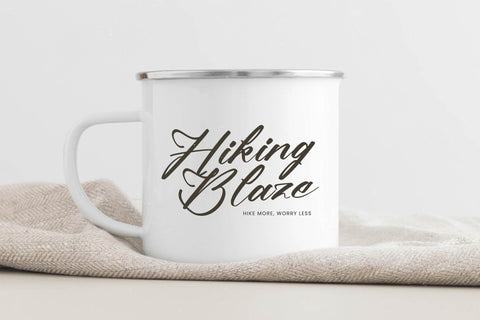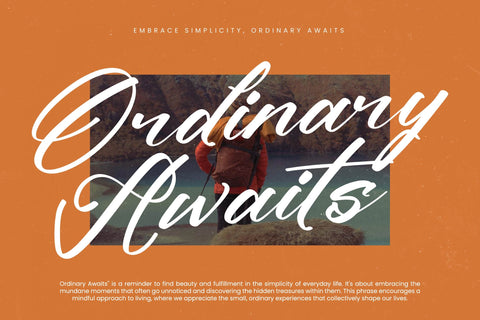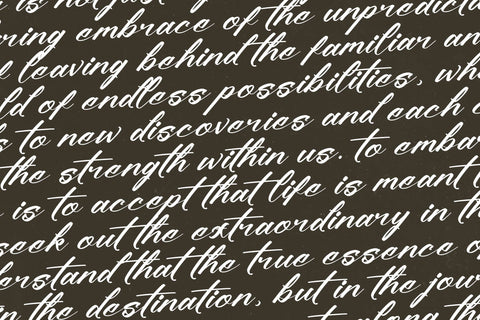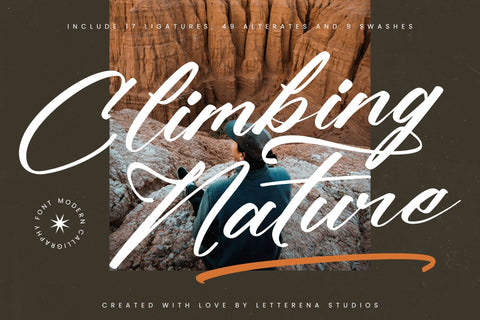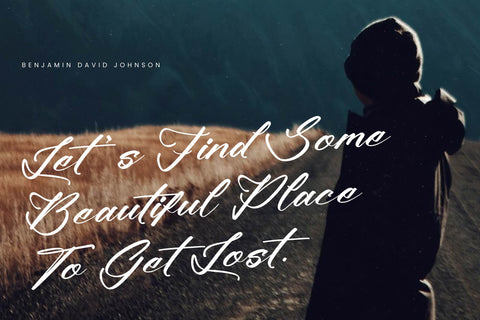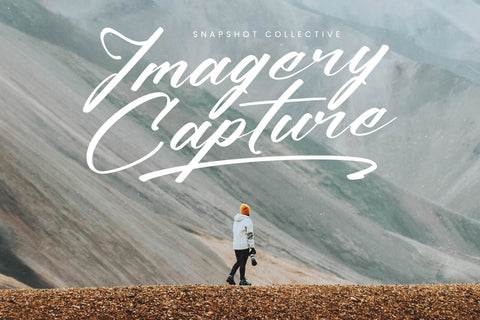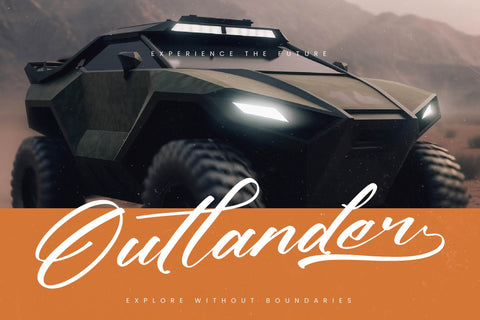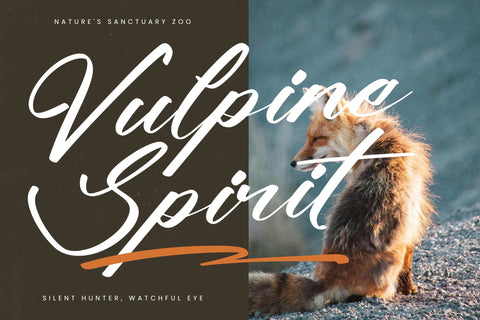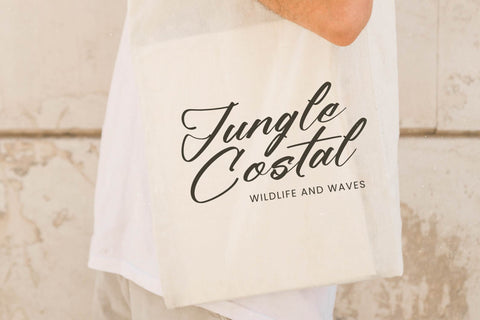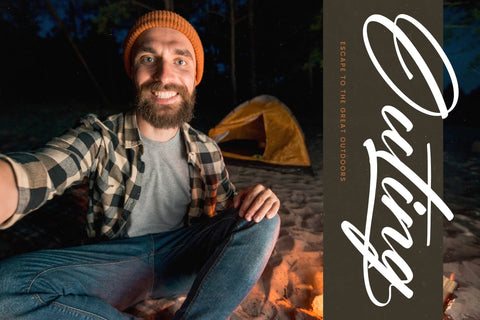
Climbing Nature – Modern Calligraphy Font
Climbing Nature – Modern Calligraphy Font , from Letterena, is a Luxury Script font, suitable for any projects such as: logos, branding projects, homeware designs, product packaging, mugs, quotes, posters, shopping bags, t-shirts, book covers, name card, invitation cards, greeting cards, label, photography, watermark, special events, and all your other luxury and beautiful projects that need a Luxury Script taste.
- Alternate and Ligature